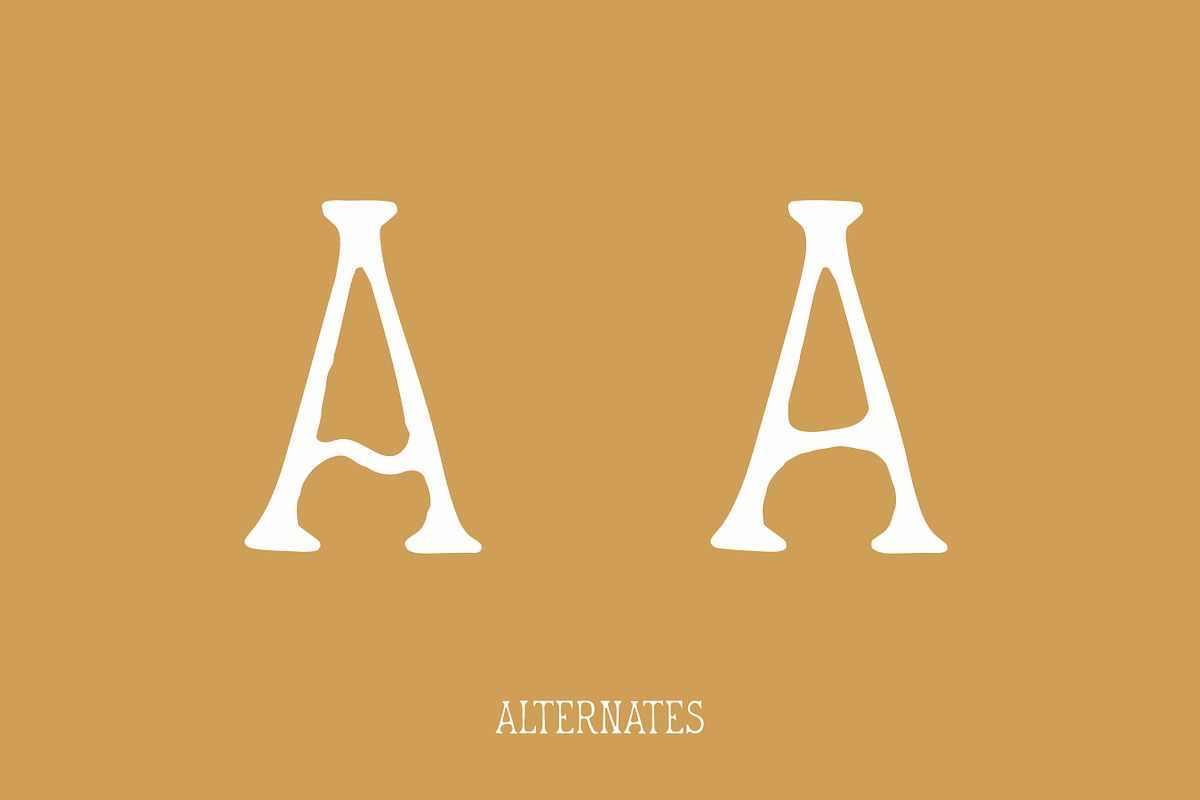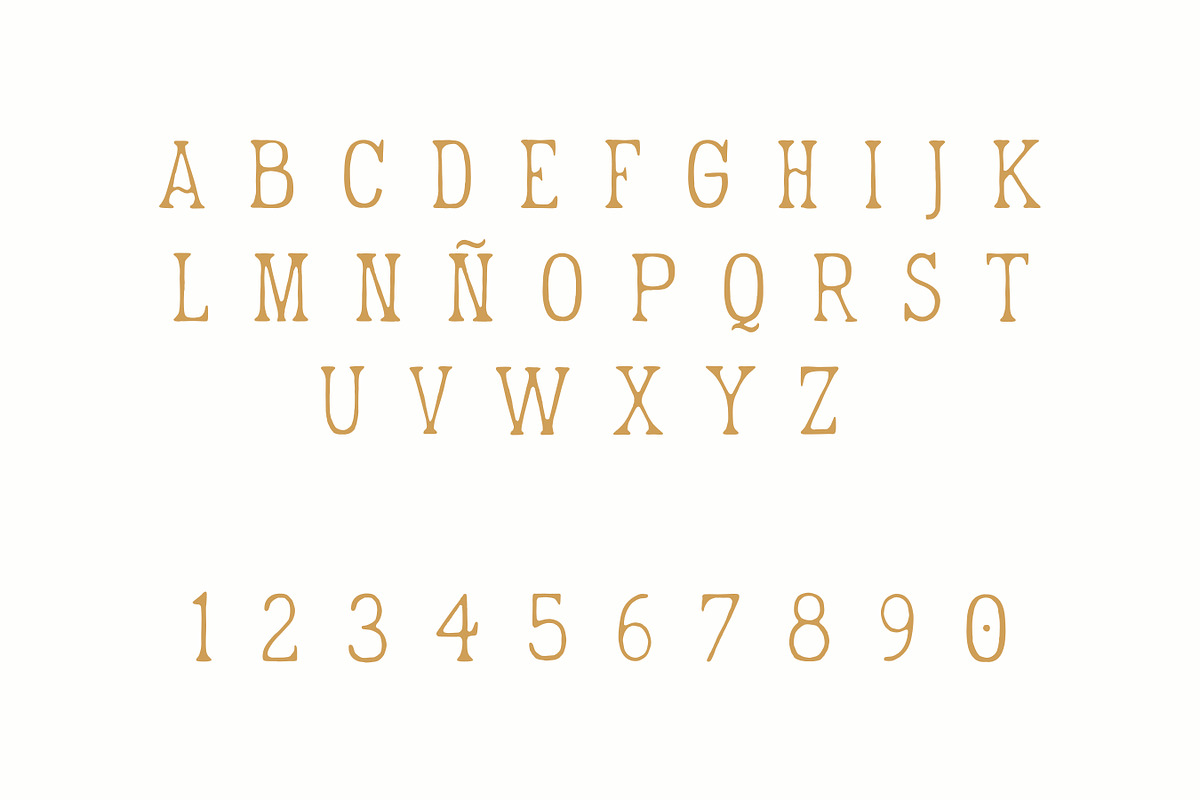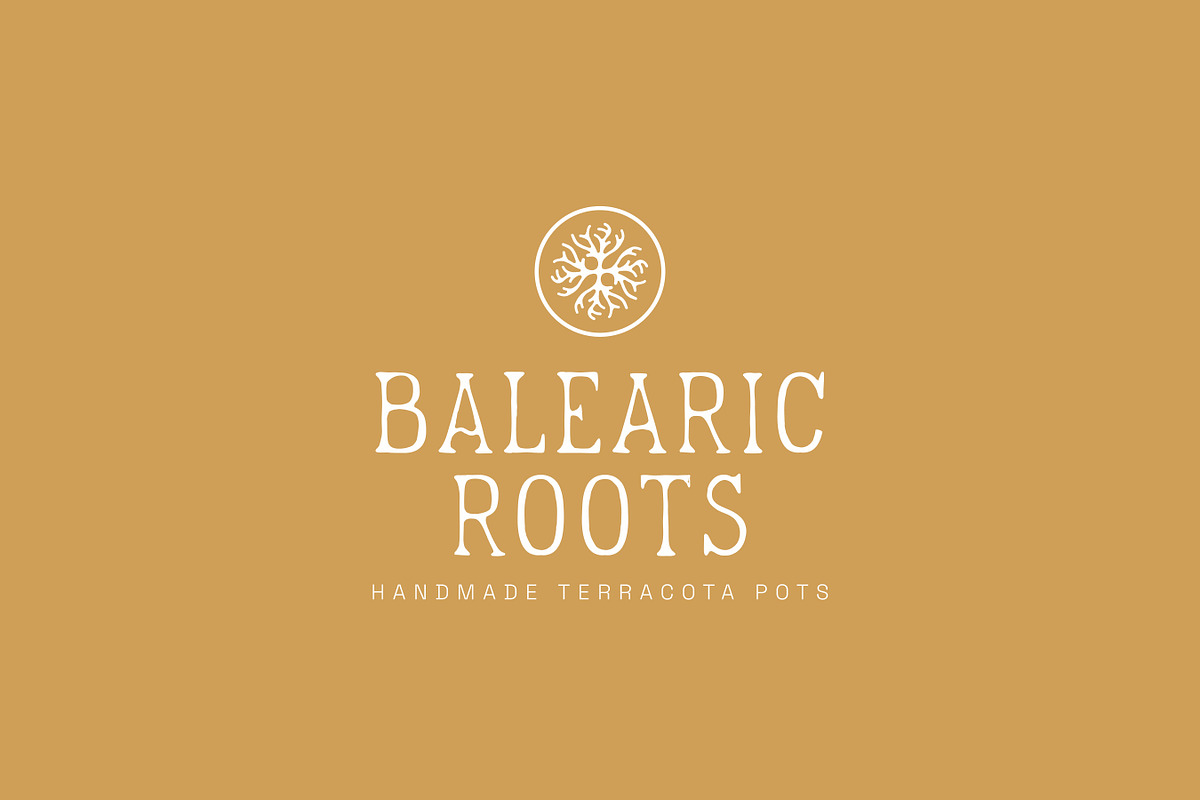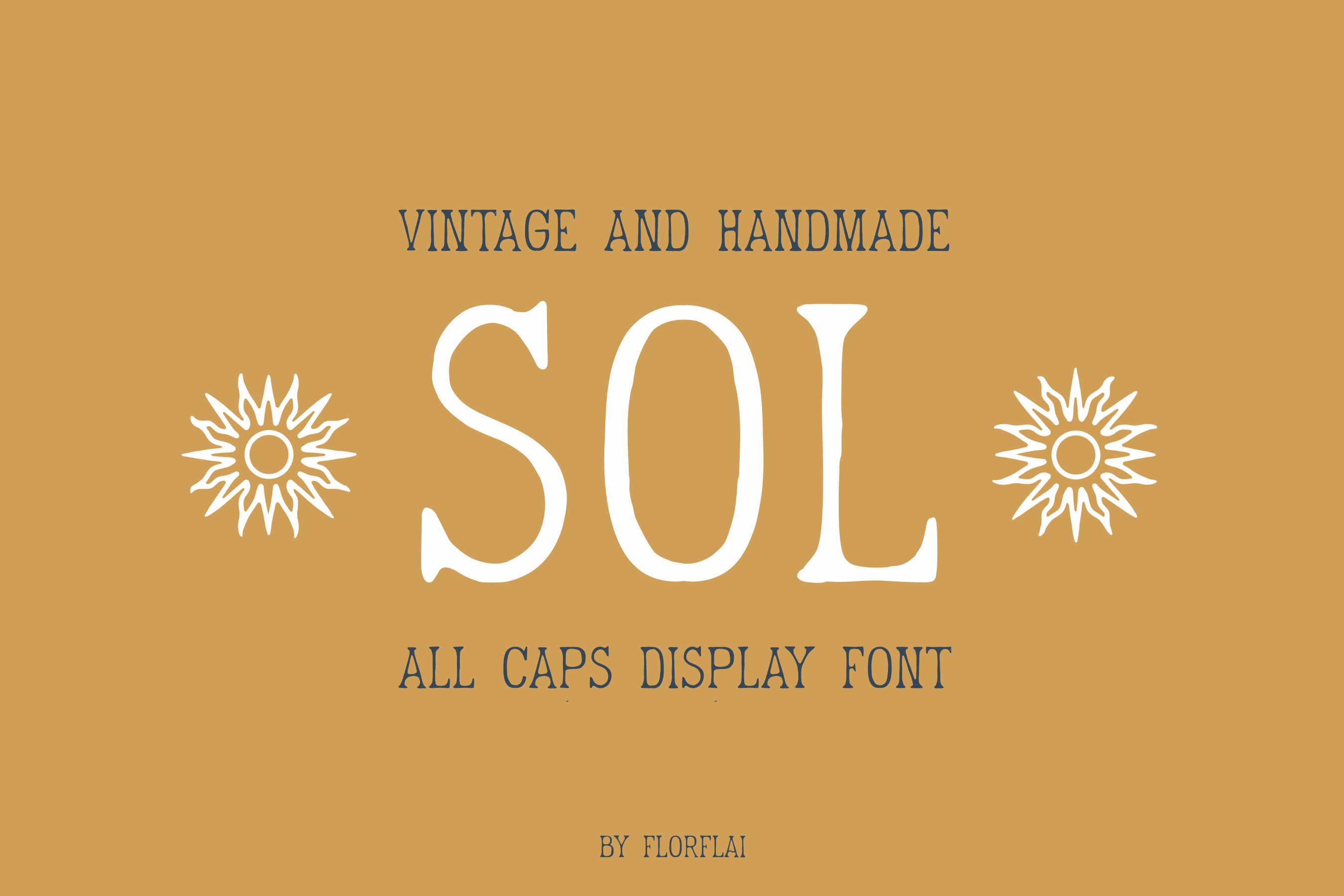
Sol handmade font
Introducing Sol font, a vintage handmade serif all caps typeface that embodies the warmth and radiance of sun-soaked days in the Balearic Islands. Each character exudes a timeless charm reminiscent of lazy afternoons under the Mediterranean sun.
With its tall appeal and artisanal strokes, Sol brings a touch of vintage elegance to any design project, whether it's branding, editorial layouts, or decorative elements. Its serif, all caps style commands attention while still retaining a sense of understated sophistication, making it perfect for headlines, signage, and logo designs.